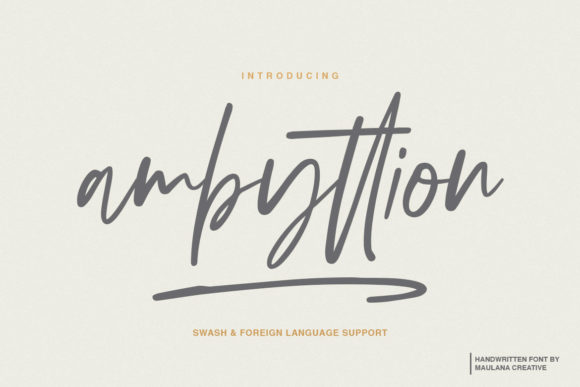
The Ambyttion Font: A Playful and Romantic Script Font
Have you ever been in the middle of a design project, and suddenly, you just can’t seem to find the right font? I know I have! It was a beautiful wedding invitation design project, and I was struggling to find a font that would add that romantic touch I was looking for. That’s when I stumbled upon the Ambyttion font. With its luscious swashes and playful script style, it was love at first sight! In this article, I’ll share my experience with the Ambyttion font, its features, and how to make the most of it in your designs.
An Honest Review of Ambyttion Font
So, what do I love about the Ambyttion font? Here are a few things:
- ✨ Beautiful swashes: The Ambyttion font comes with gorgeous swashes that add a touch of elegance and sophistication to any design.
- ✅ Playful and romantic: The font’s script style is perfect for designs that require a playful and romantic touch, such as wedding invitations, greeting cards, and social media graphics.
- 💫 High-quality design: The font is designed with high-quality craftsmanship, making it perfect for both digital and print designs.
Now, let’s talk about some small quirks or limitations:
- 🤔 Some swashes may not work well with all letters: While the Ambyttion font comes with many beautiful swashes, some of them may not work well with certain letters. You may need to experiment with different combinations to find the perfect one.
- ⚠️ May require manual kerning: Depending on the design, you may need to adjust the kerning manually to achieve the perfect spacing.
The Backstory of Ambyttion Font
The Ambyttion font was designed by a team of talented typographers who wanted to create a font that would add a touch of romance and elegance to any design. Inspired by classic script fonts, the Ambyttion font features beautiful swashes and a playful script style that’s perfect for a variety of design projects.
Q: What is the Ambyttion font?
A: The Ambyttion font is a playful and gorgeous script font featuring luscious swashes, perfect for adding a romantic touch to any design.
Q: What design projects is the Ambyttion font suitable for?
A: The Ambyttion font is suitable for a variety of design projects, including wedding invitations, greeting cards, social media graphics, and more.
Q: Is the Ambyttion font easy to use?
A: Yes, the Ambyttion font is easy to use and comes with a range of features, including swashes and stylistic alternates, to help you create beautiful designs.